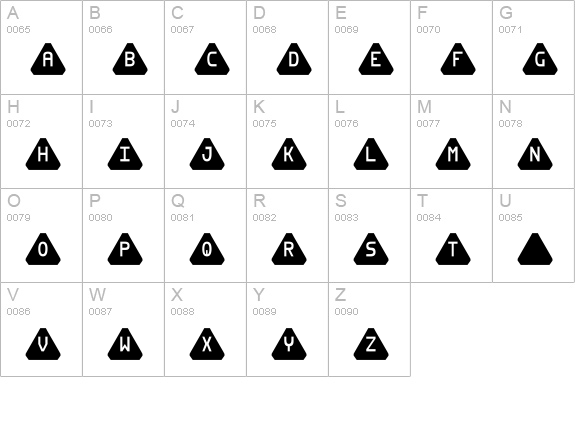
Pyrabet font is a stunning display typeface that exudes elegance and sophistication. With its unique blend of sharp edges and smooth curves, Pyrabet is sure to make any design project stand out. This versatile font is perfect for a wide range of applications, from logos and branding to headlines and posters. The best part about Pyrabet font? It's completely free! That's right, you can download this exquisite typeface at FontsMarket.com without spending a dime. Whether you're a seasoned designer looking to add a fresh touch to your work or a newcomer exploring the world of typography, Pyrabet font is a must-have addition to your font collection. Don't miss out on the opportunity to elevate your designs with this beautiful and freely available font.